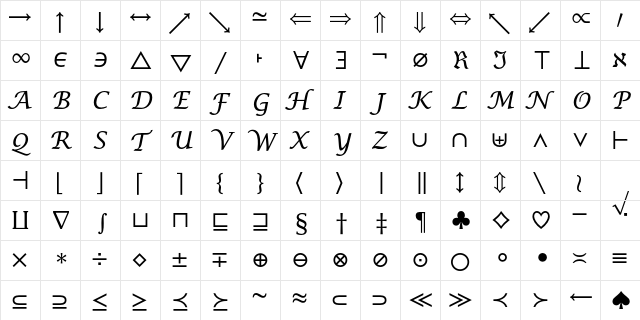
Lucida Math Symbol
Design Context for Lucida Math Typeface
Lucida Math takes a measured approach to typography — its balanced proportions and neutral character make it a reliable workhorse for both digital and print work.
Pro Tip: Use Lucida Math in both headline and body roles to test its range before committing to a single application.